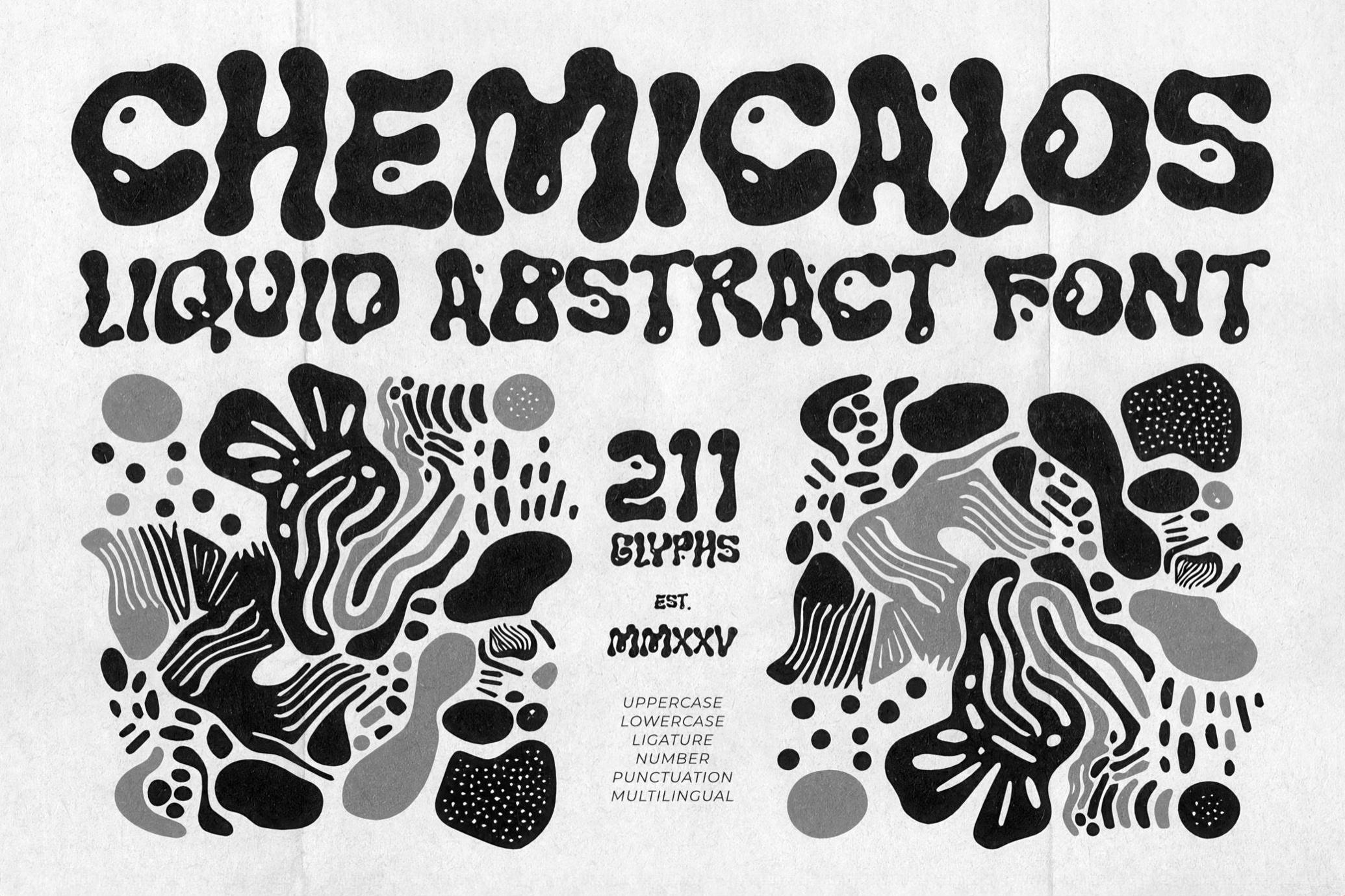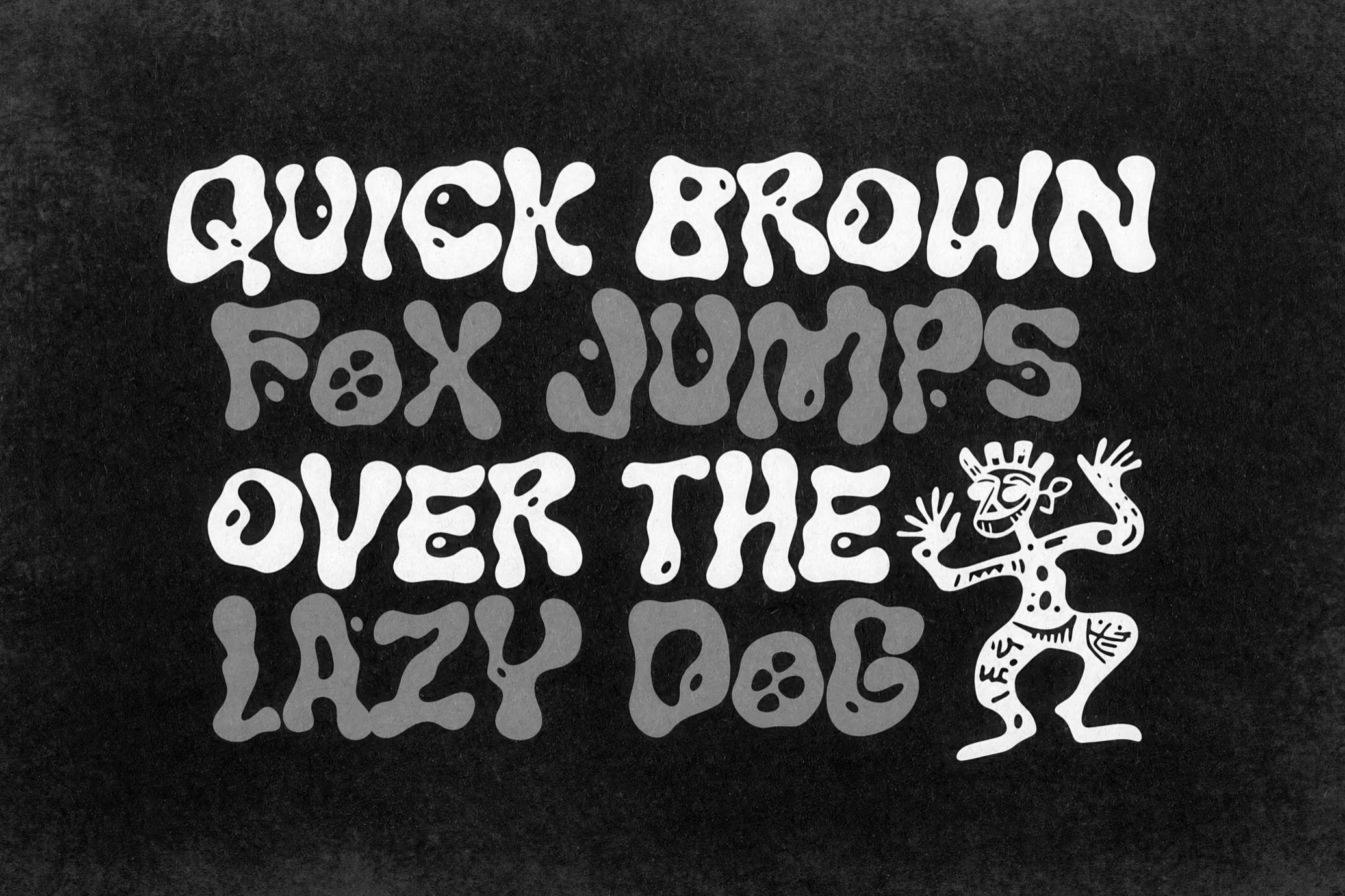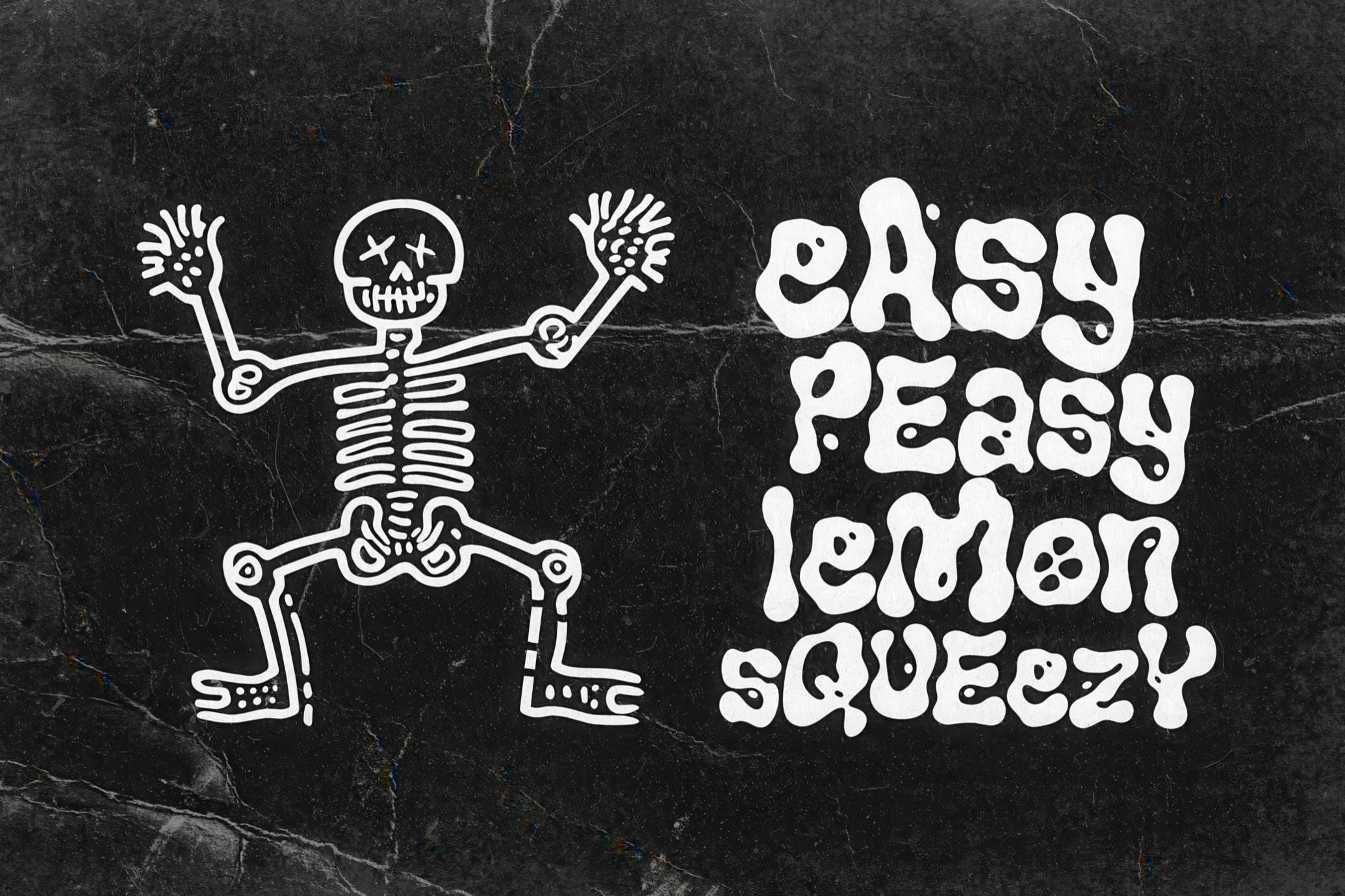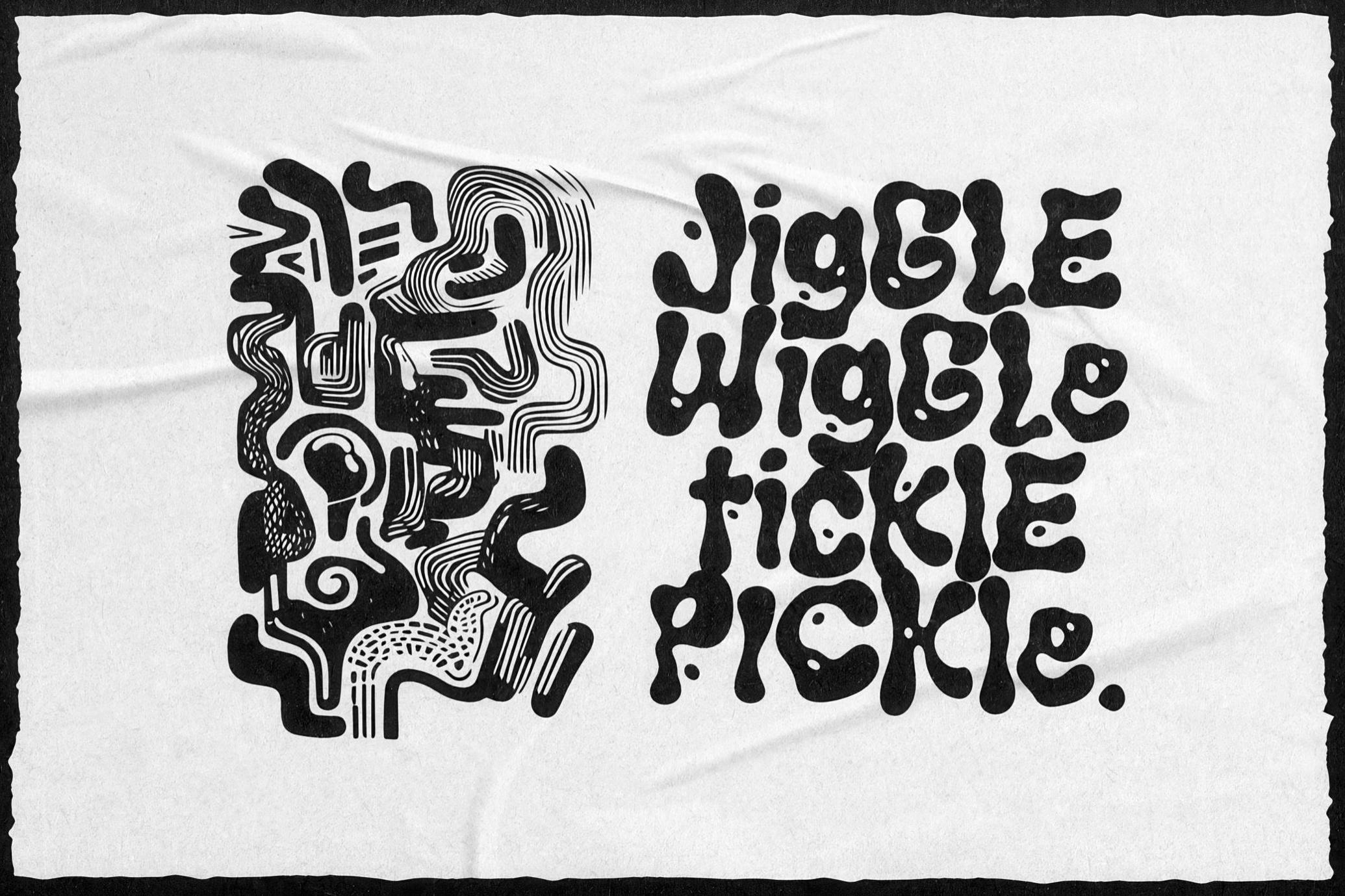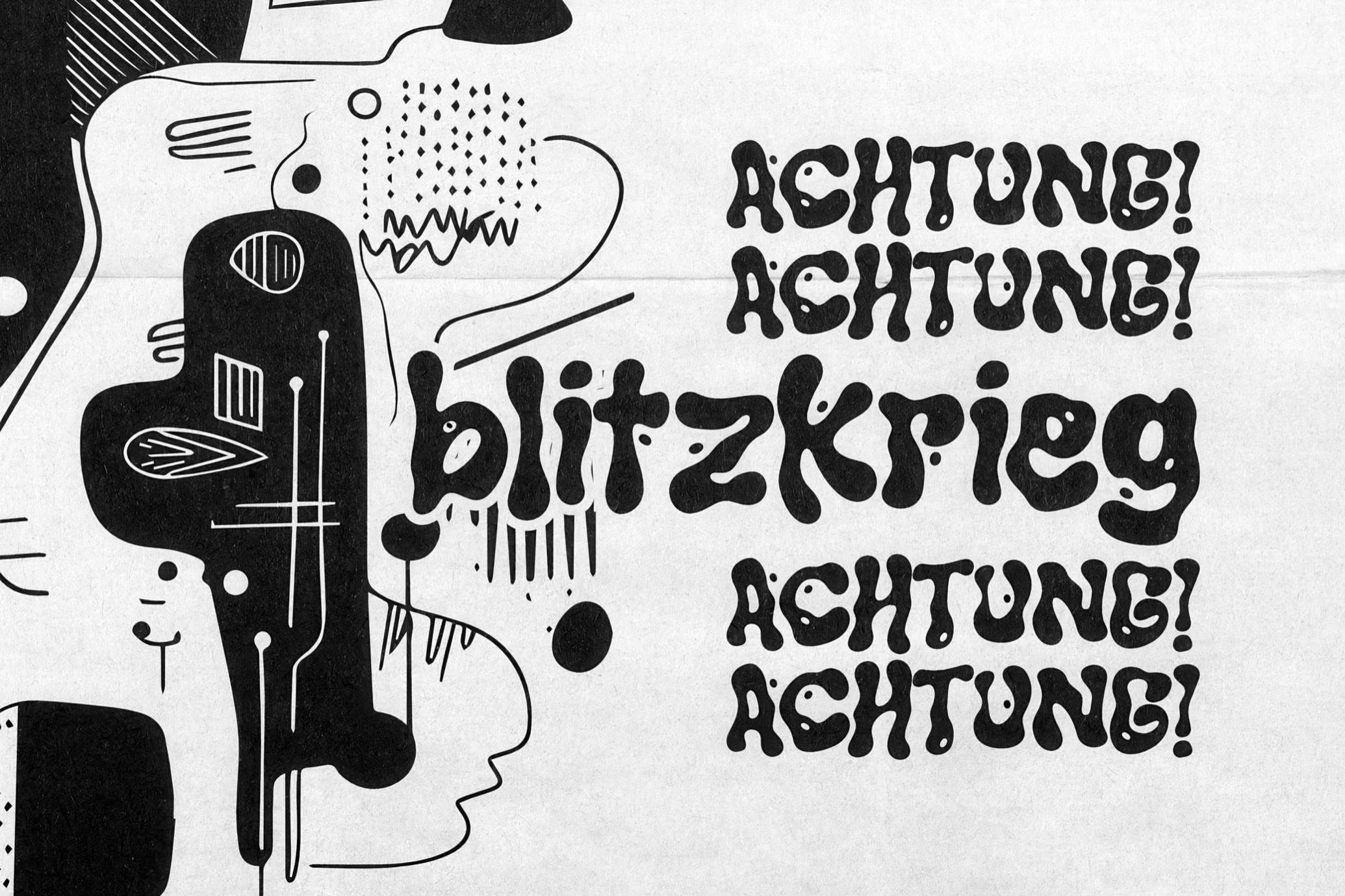
CHEMICALOS — Liquid Abstract Font
CHEMICALOS
We've located the CHEMICALOS somewhere between a factory alarm and the first riff of "Chemicals" on full blast — that was pretty relentless! The font pulses 100% with corrosive energy as if it's the typographic equivalent of a system overload. Or even worse: as if toxic spills, mutant monsters, and gooey textures inspire it.
Ideal for poster art, experimental branding, album covers, dripping horror aesthetics, merch, stickers, and apparel. CHEMICALOS comes with a complete character set, ligatures, and multilingual support.